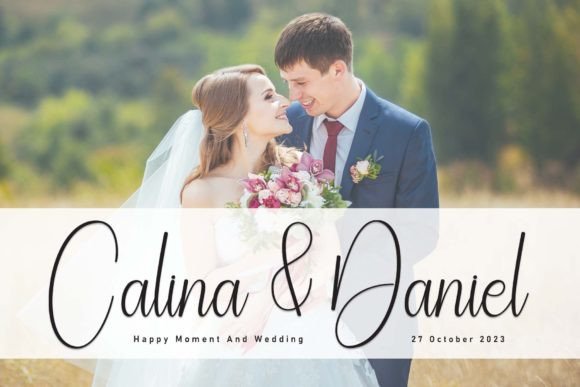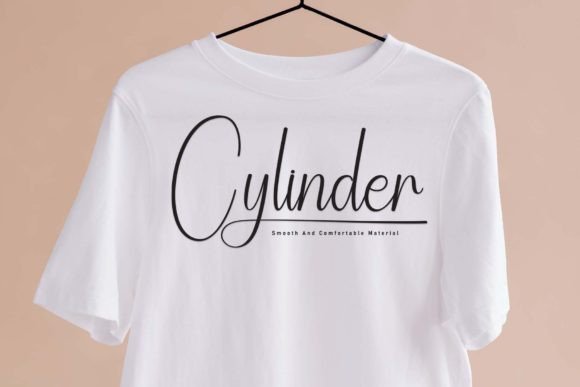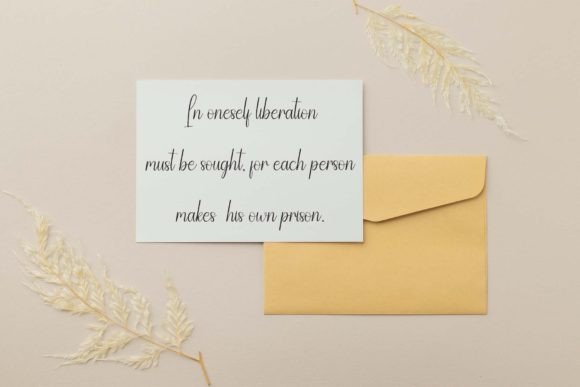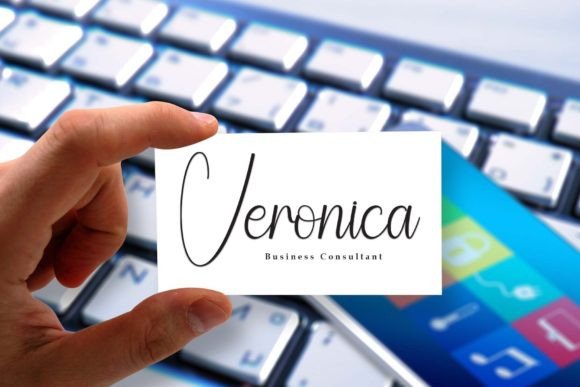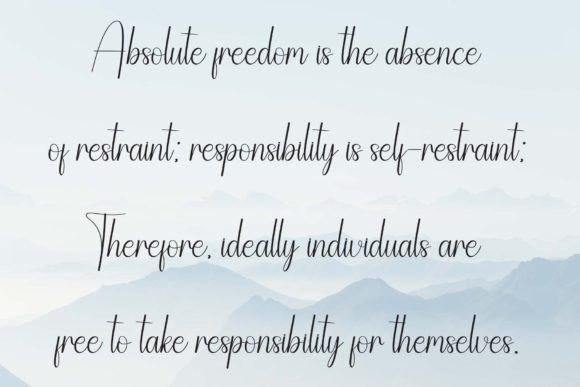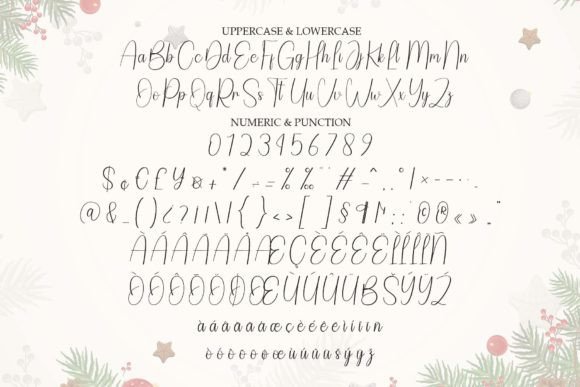
Getting into the Holiday Spirit with the Perfect Font
As the holiday season approaches, I find myself getting creative with all things festive. From decorating the tree to planning the perfect Christmas party, I love adding a personal touch to every detail. And let’s be honest, what’s more personal than a beautiful handwritten font? That’s where the Christmas Signature Font comes in – a sweet and friendly handwritten display font that’s perfect for adding a fun touch to your holiday designs.
Whether you’re writing wedding invitations, crafting cards, or designing a festive logo, the Christmas Signature Font is an ideal choice. Its cute and playful vibe makes it a valuable asset for designers looking to bring a little extra joy to their projects. With its unique charm and versatility, this font is sure to become a holiday favorite – and a valuable addition to any designer’s toolkit.
Christmas Signature Font Key Features
- Font Style: A festive, handwritten font designed to evoke the spirit of Christmas, perfect for holiday cards, gift tags, and other seasonal designs.
- Unique Characteristics: Features a mix of bold and elegant strokes, along with intricate details and ornaments, making it a standout choice for holiday designs.
Designer Review: Christmas Signature Font
Overall, I think the Christmas Signature Font is a fun and festive addition to any holiday design project. ✨ The font is playful and eye-catching, making it perfect for creating attention-grabbing headlines or titles. The font’s design is also highly customizable, allowing users to adjust the color, size, and style to fit their project’s specific needs.
The font’s character set is also quite extensive, making it easy to find the perfect symbol or icon to complement your design. ✨ Some of my favorite features include the bold, cursive script and the intricate, hand-drawn details that add a touch of whimsy to any design.
- ⚠️ The font may be a bit too flashy or over-the-top for some design projects, so be sure to use it sparingly.
- ⚠️ Some of the font’s characters may not be as polished or refined as others, which can be distracting in certain designs.
- ⚠️ The font may not be as versatile as some other fonts, making it less suitable for projects that require a more minimalist or modern aesthetic.
Overall, I think the Christmas Signature Font is a great choice for designers looking to add a festive touch to their holiday projects. While it may have some limitations, the font’s unique design and high level of customization make it a valuable addition to any designer’s toolkit.
Some common use cases for the Christmas Signature Font include:
- Holiday greeting cards and invitations
- Festive gift tags and gift boxes
- Christmas party invitations and decorations